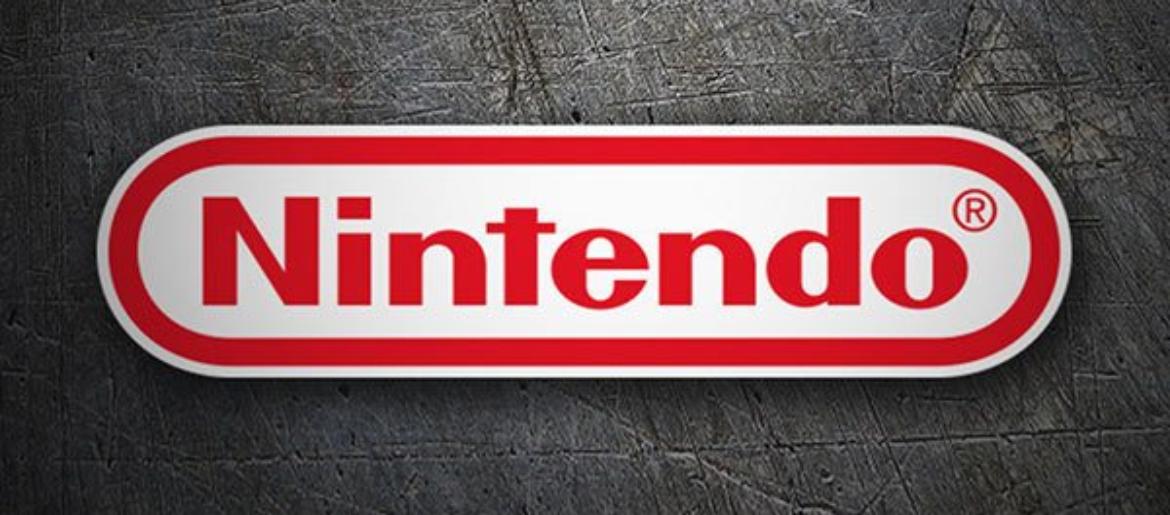
Nintendo Font
What Font Does Nintendo Use?
The Nintendo Font is a custom logotype style that has been used since the 1980s across the company’s logo, game packaging, and marketing materials. It is a rounded sans-serif display typeface with bold, smooth curves, giving Nintendo a friendly and instantly recognizable visual identity.
About Nintendo